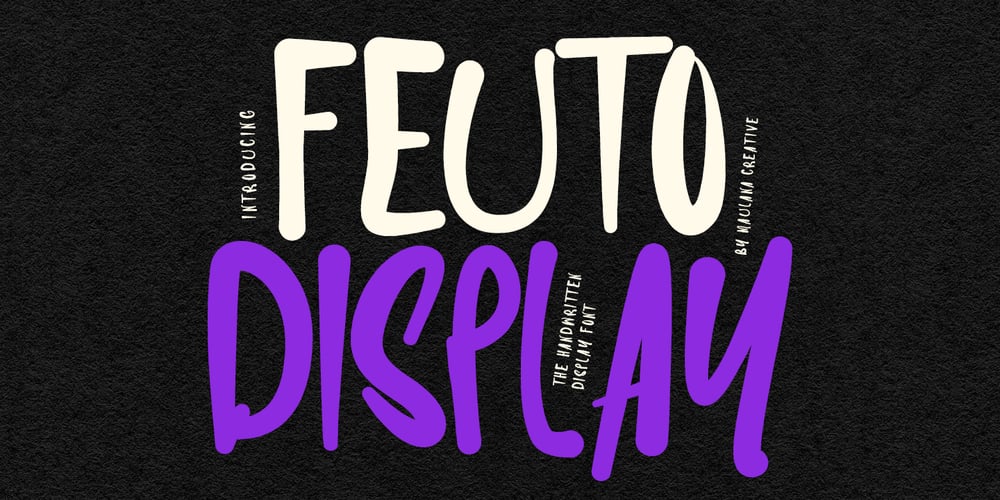
MC Feuto Font Family was designed by Gilang Maulana and published by Maulana Creative. MC Feuto contains 1 styles and family package options. Feuto handwritten font. Fun character with a ligatures. To give you an extra creative work. Feuto support multilingual language. This font is good for logo design, Social media, Movie Titles, Books Titles, a short text even a long text letter and good for your secondary text font with script or serif. Make a stunning work with Feuto handwritten font. Cheers, Maulana Creative